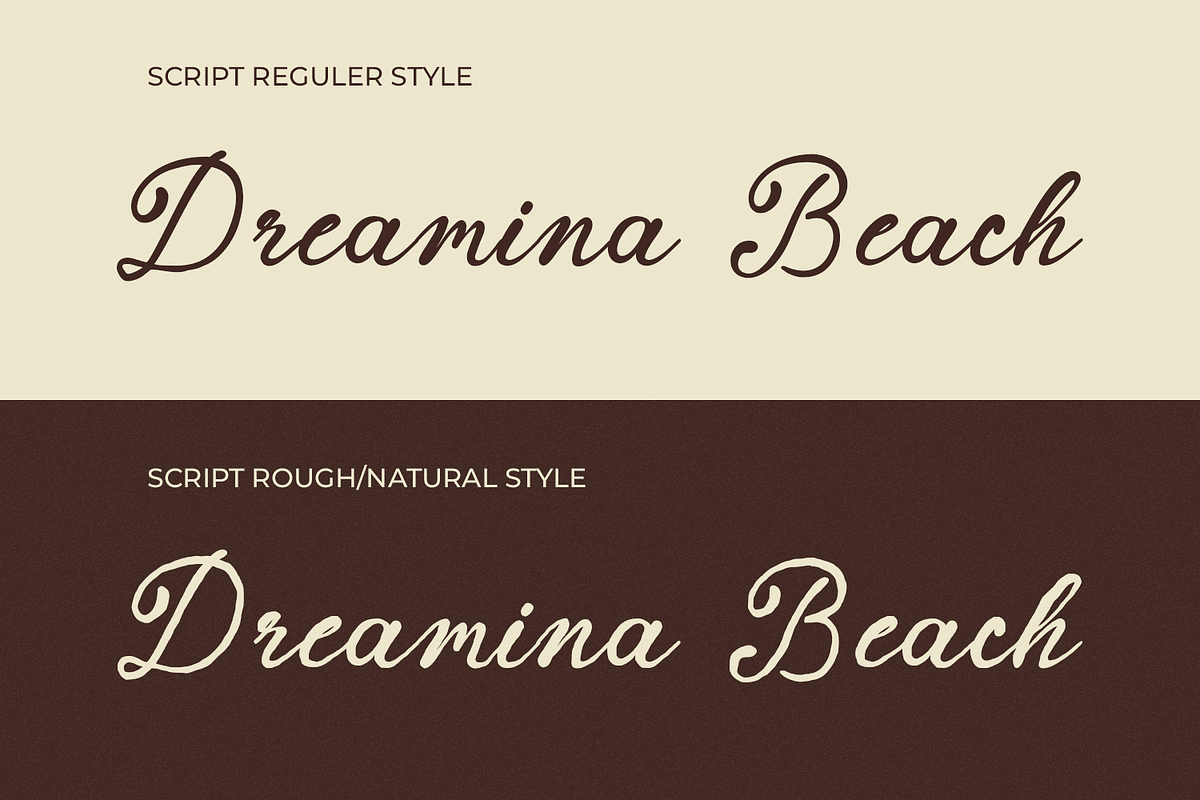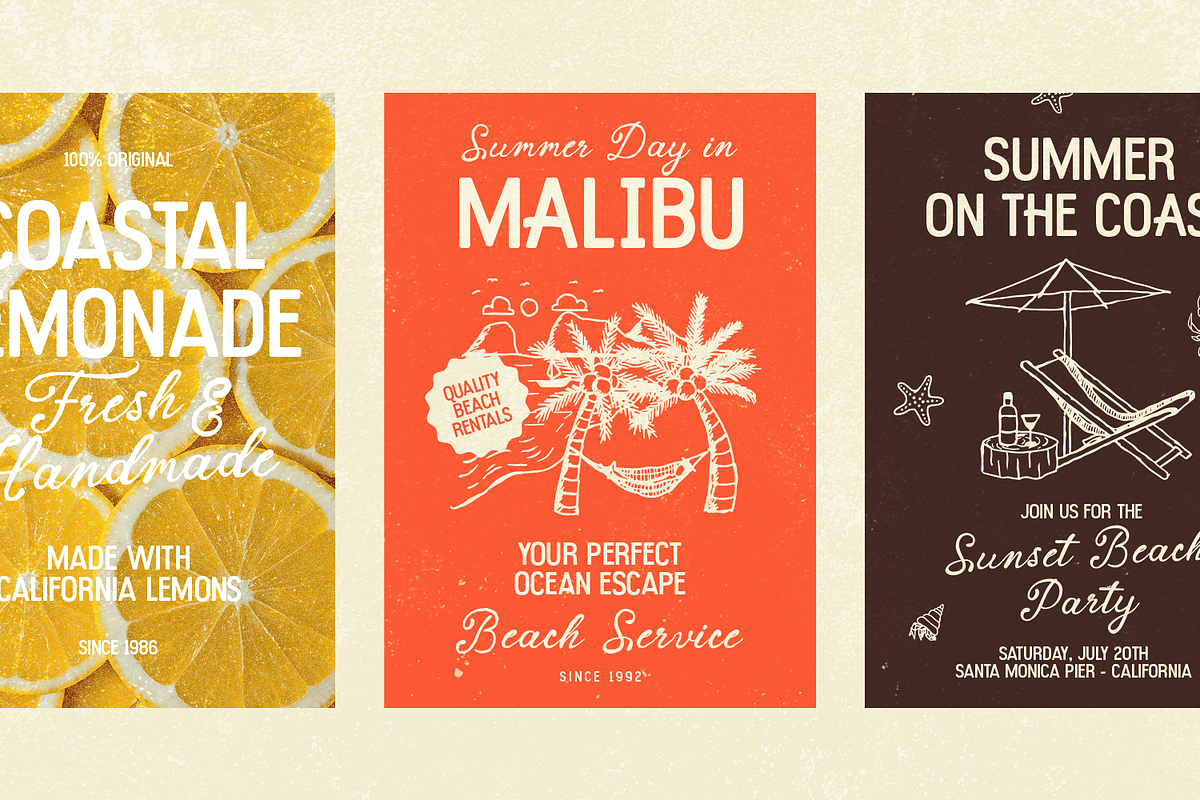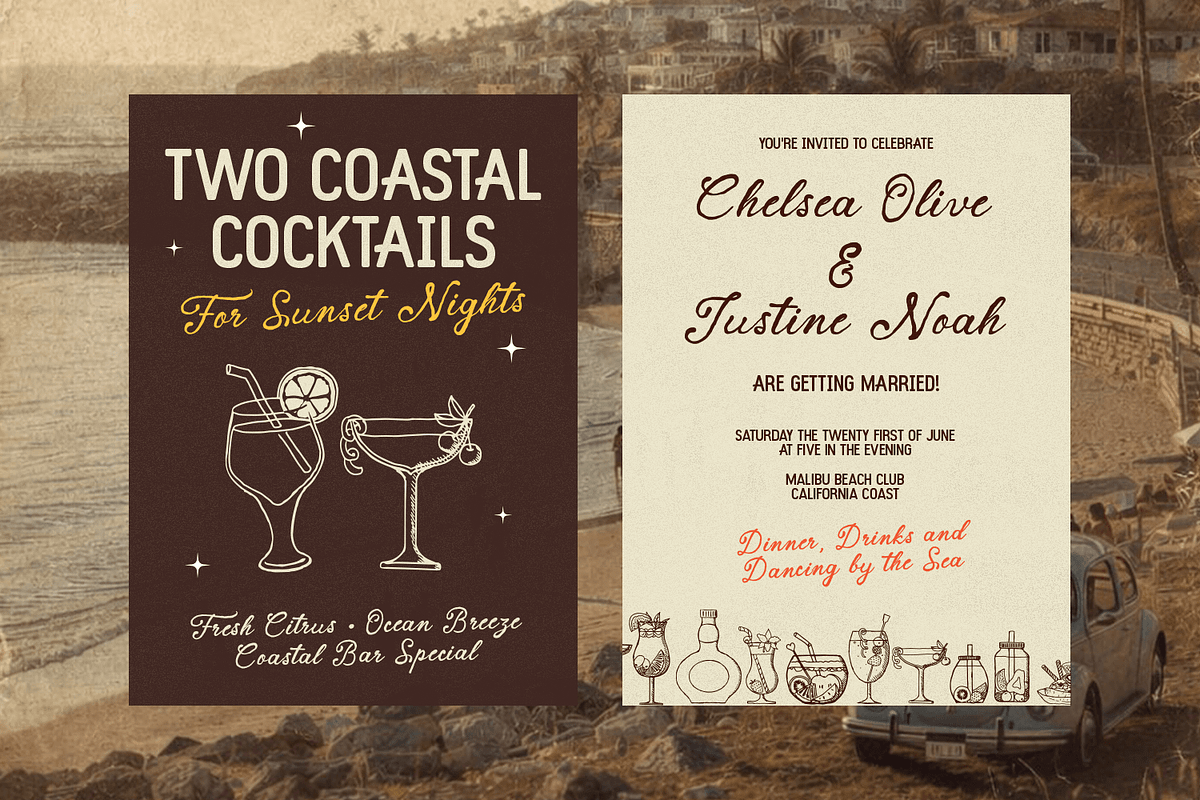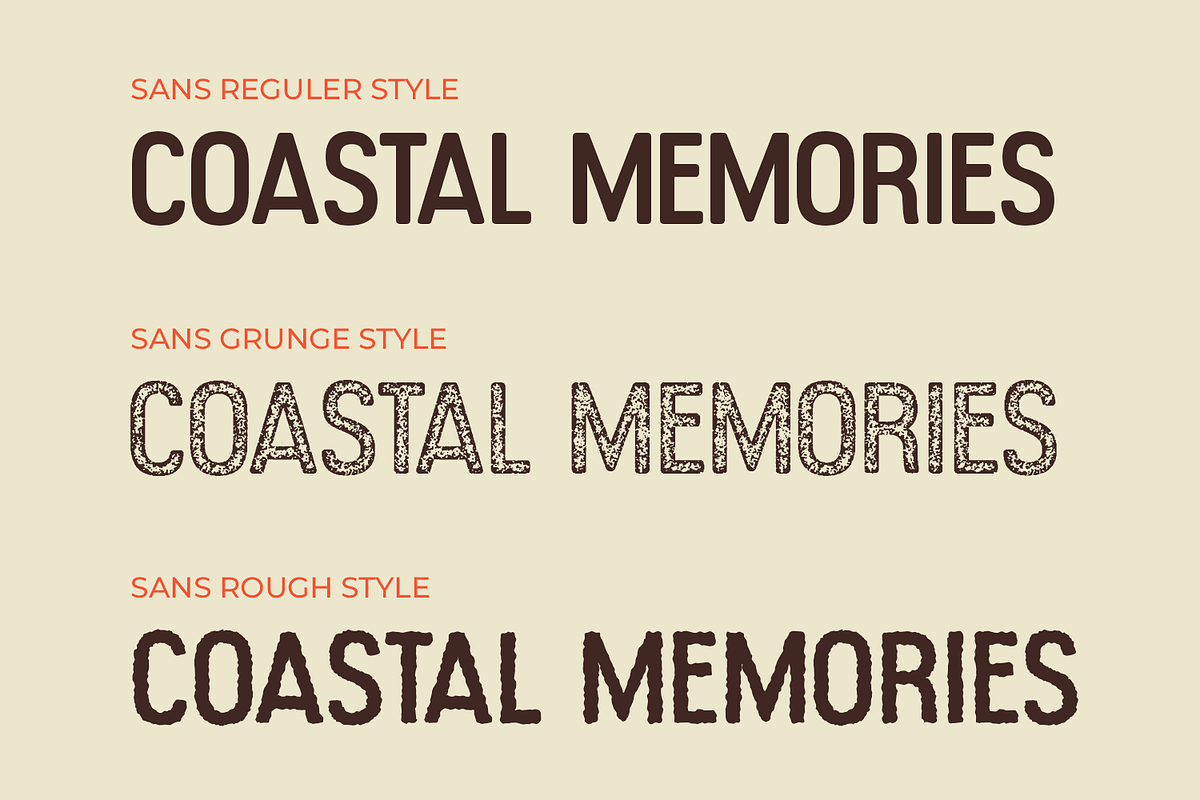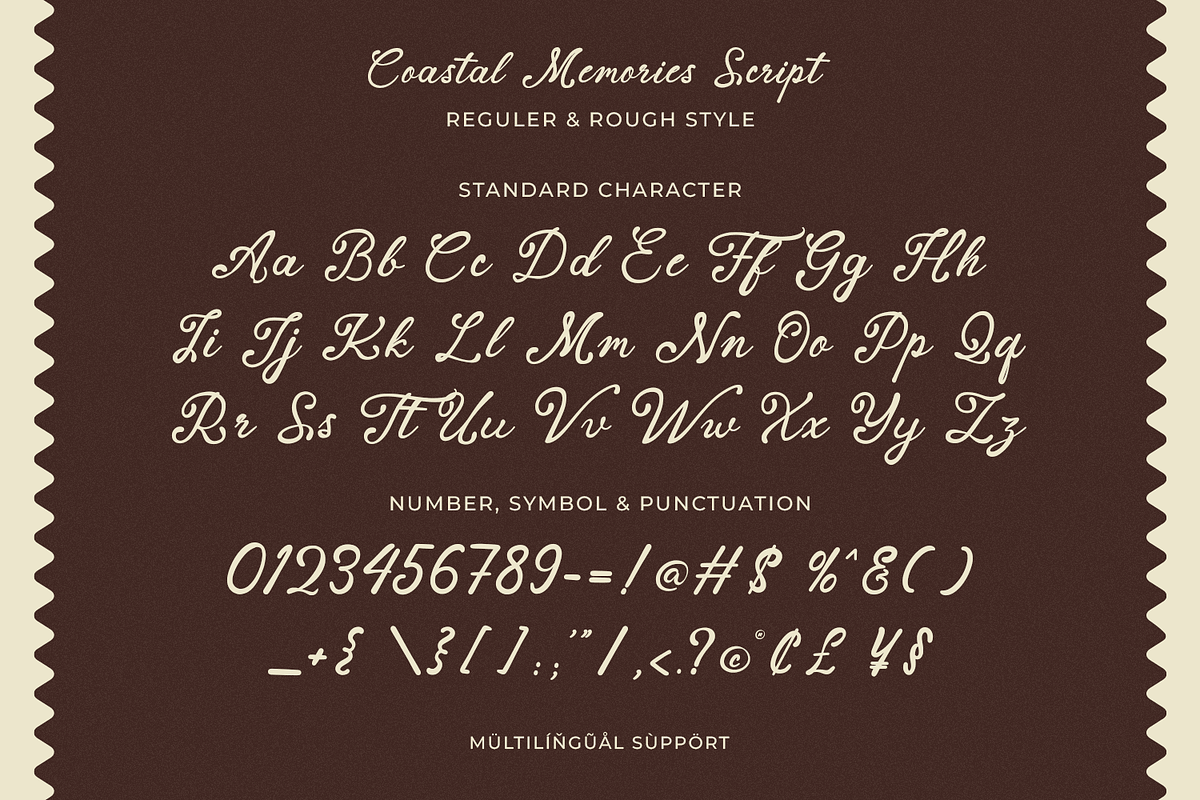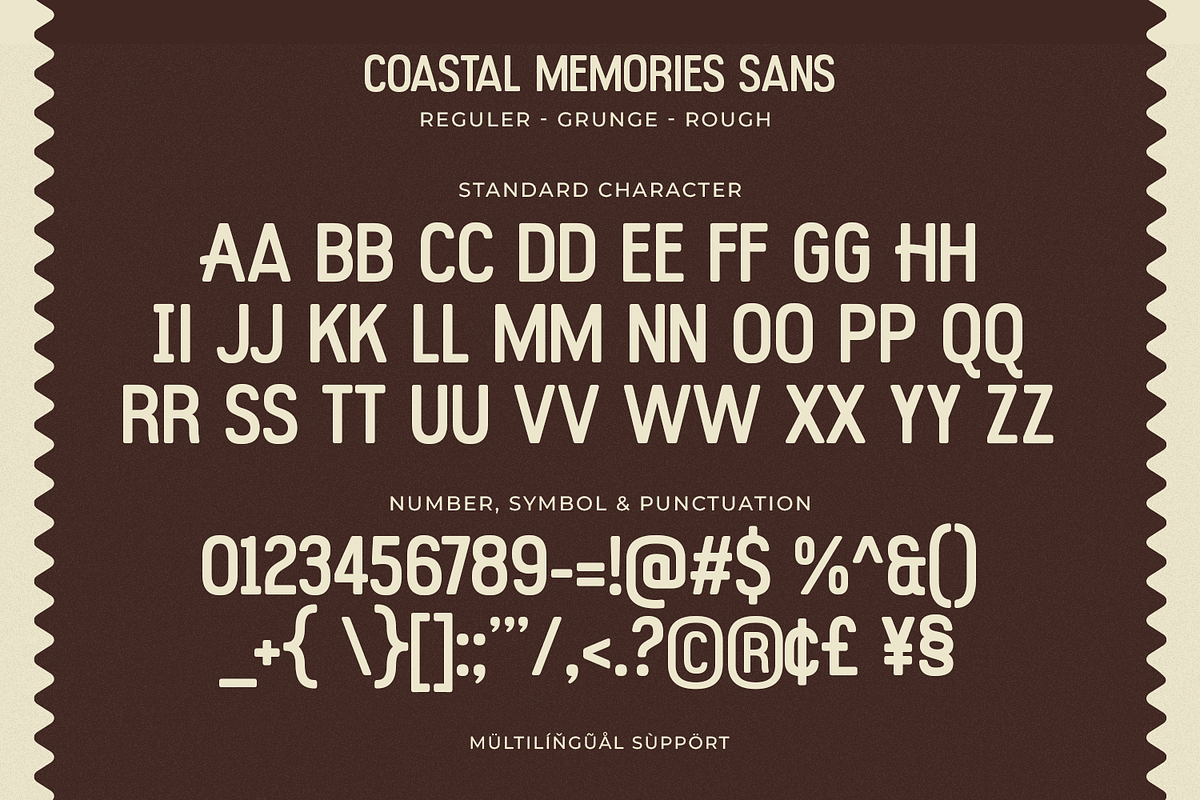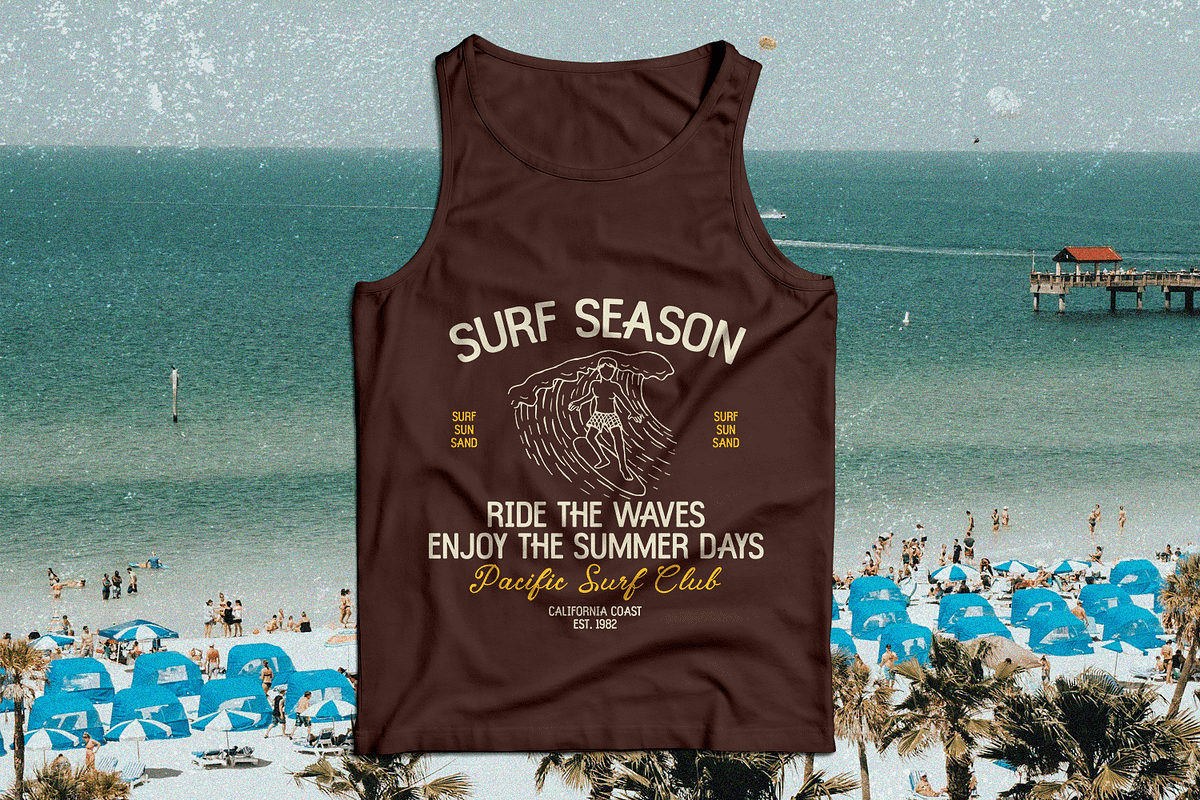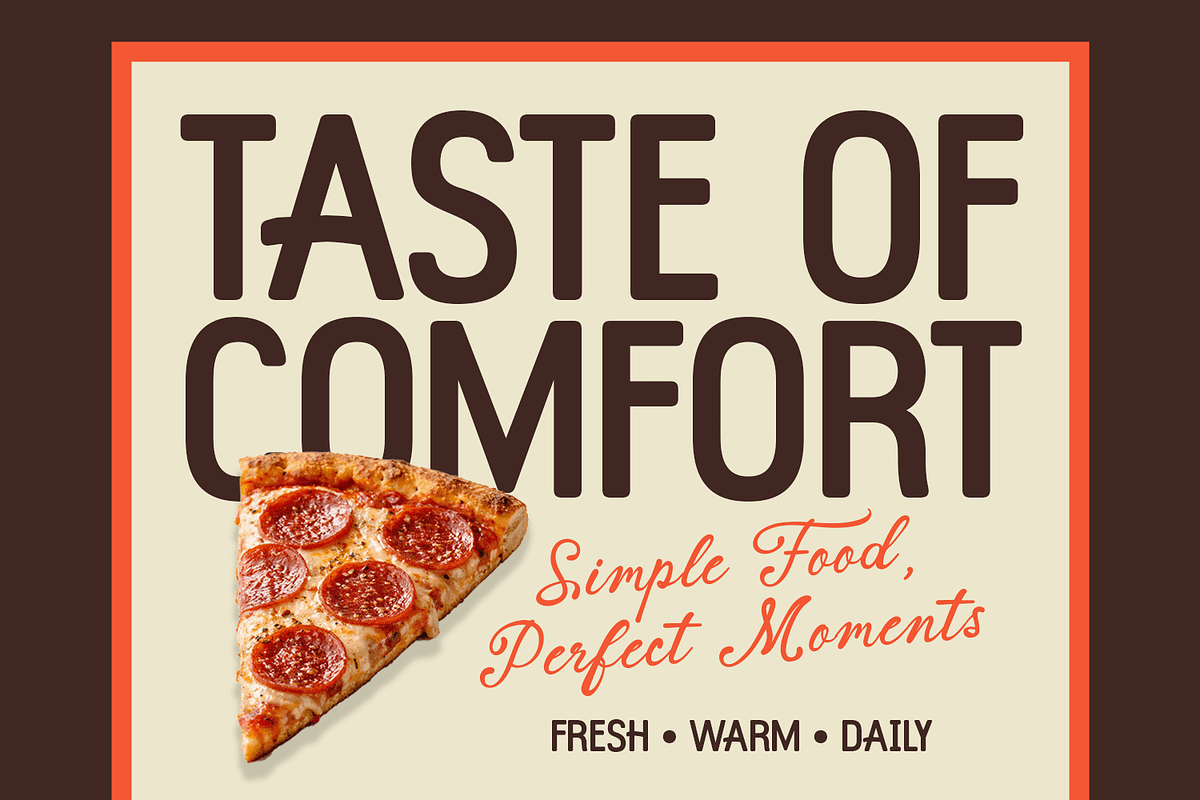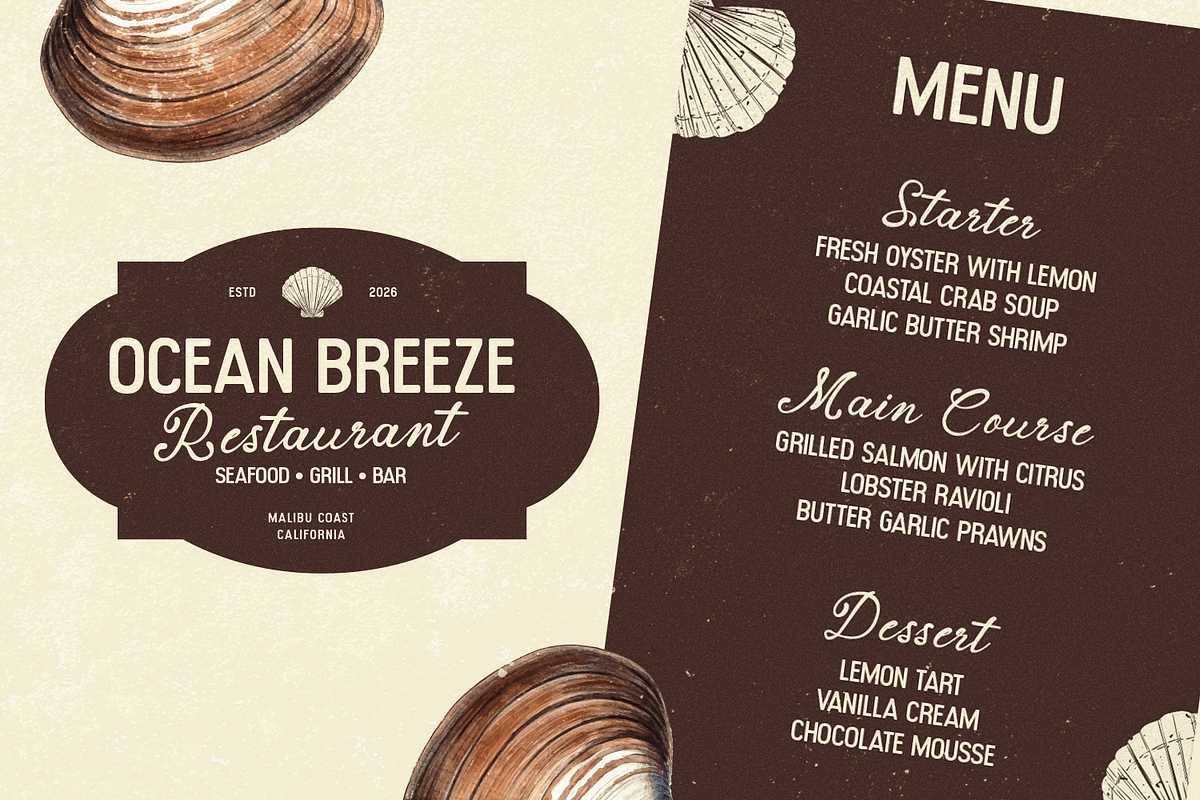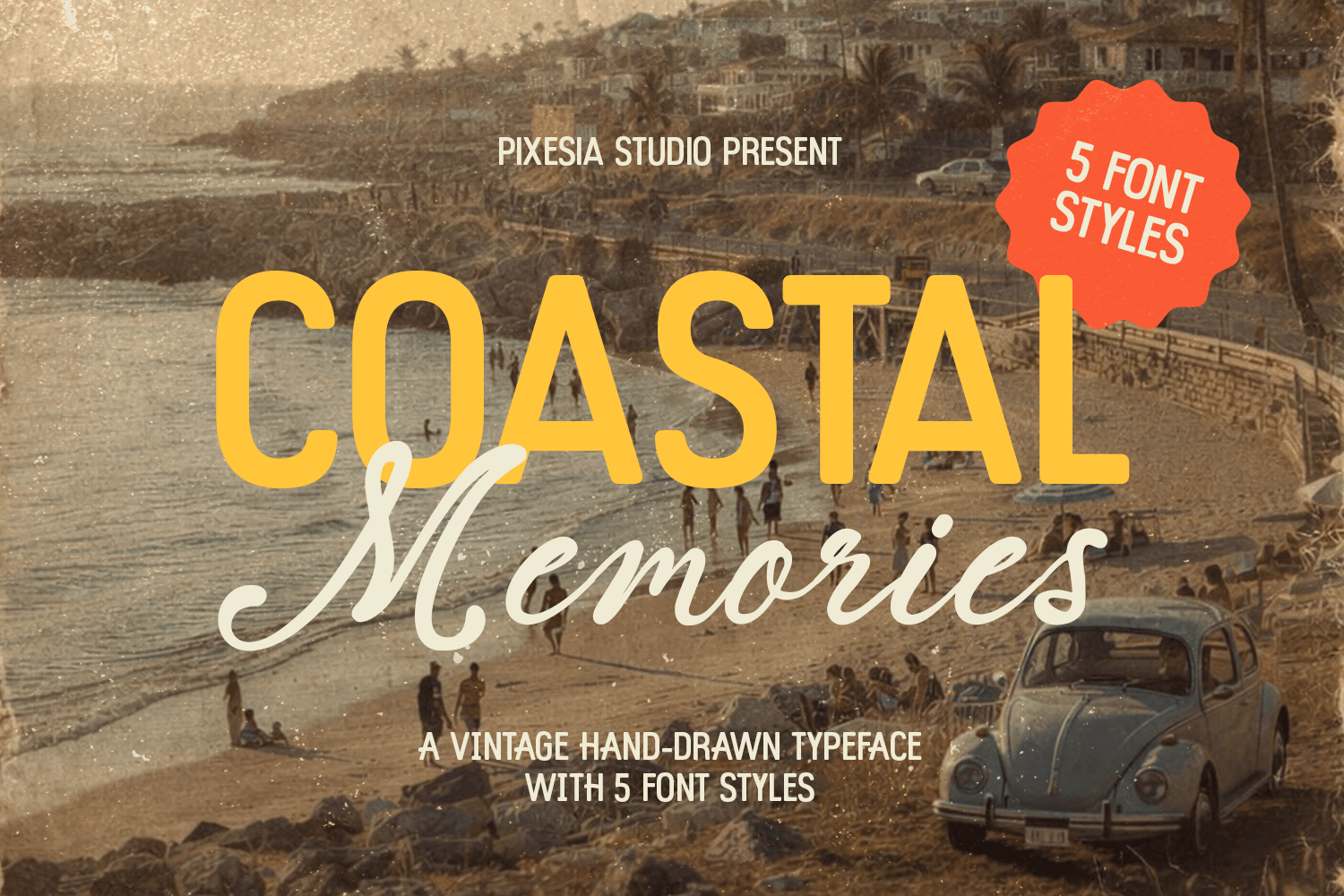
Coastal Memories - Vintage Font Duo
Introducing Coastal Memories - Retro Vintage Font Duo
Coastal Memories is a vintage-inspired hand-drawn typeface that captures the warmth and nostalgia of coastal living. Featuring a beautiful combination of bold display letters and flowing script styles, this font brings a relaxed, retro charm to your designs. With 5 versatile font styles included, Coastal Memories offers flexibility for creating layered typography with a cohesive and stylish look.
Perfect for branding, packaging, posters, postcard, hand-paintend signage, striped loungers, summer branding, travel designs, beach themes, social media content, and lifestyle projects, Coastal Memories evokes a timeless summer vibe. Whether you're building a retro-inspired identity or crafting a laid-back visual story, this font delivers personality, warmth, and a nostalgic aesthetic that feels both classic and fresh.